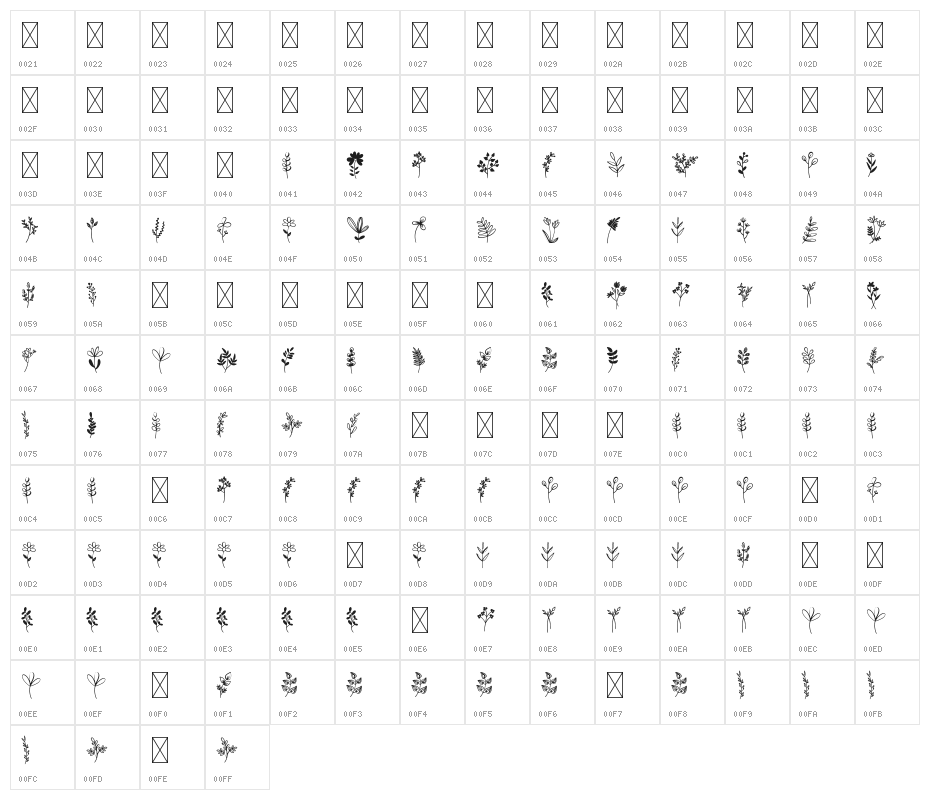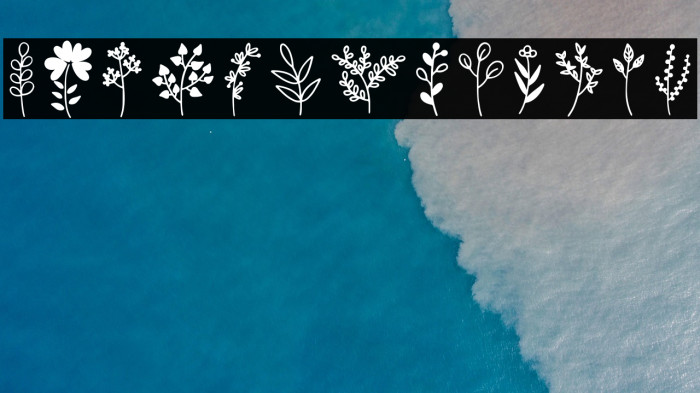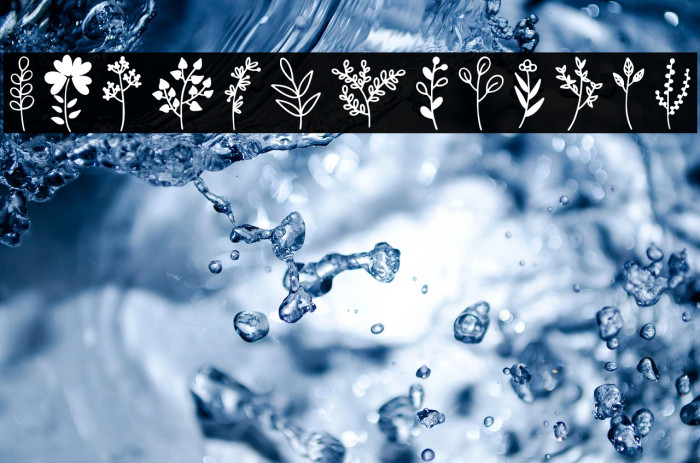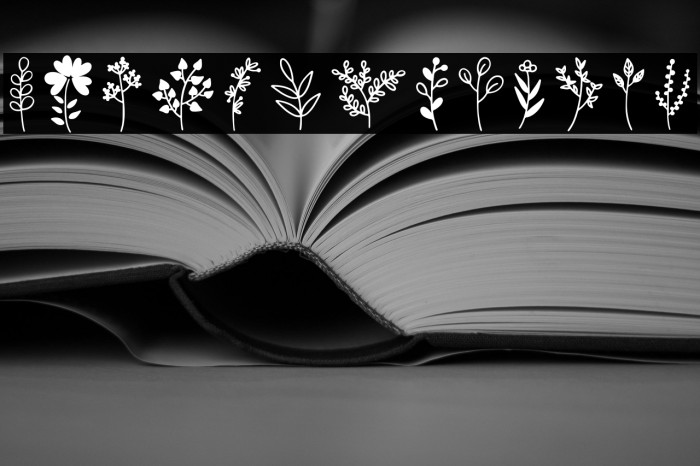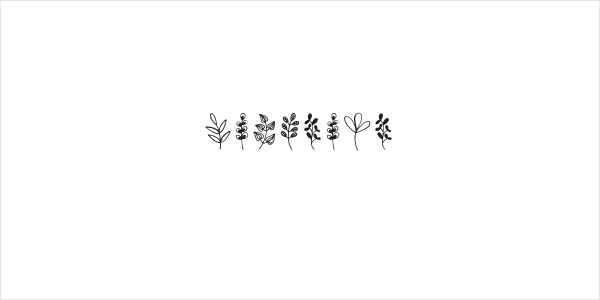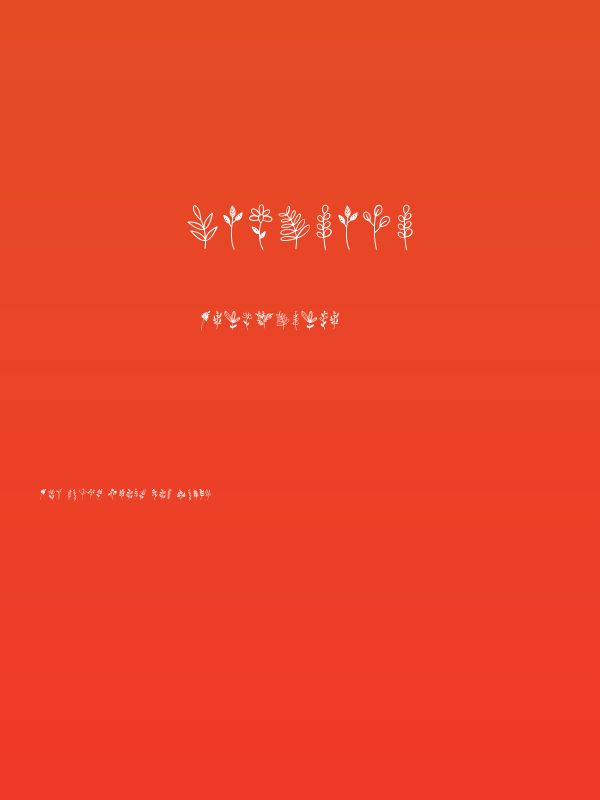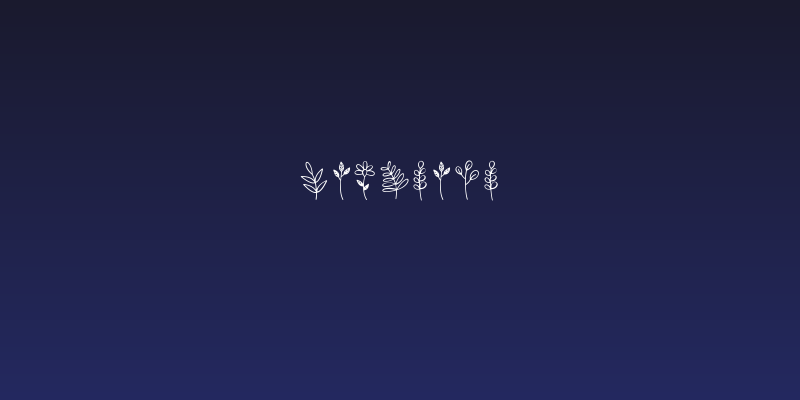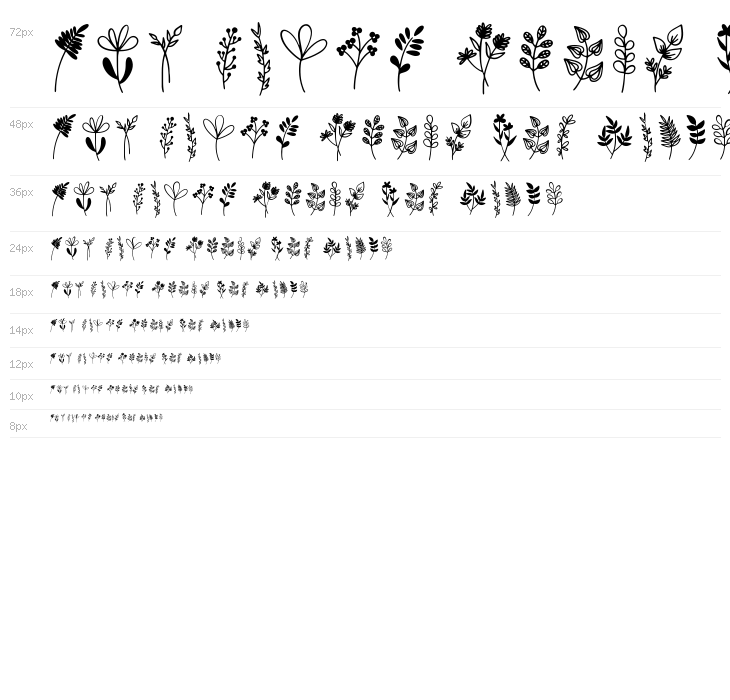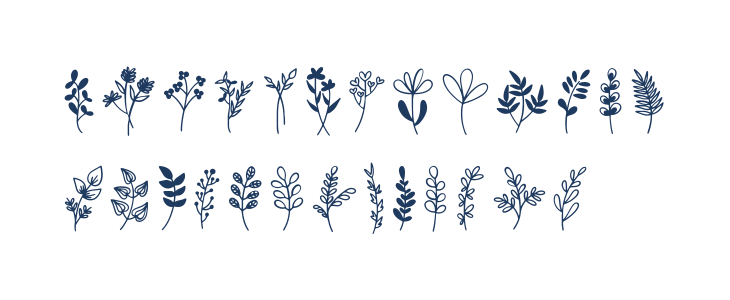
Floralia Font
Floralia Description
A decorative dingbat set featuring hand-drawn floral and botanical illustrations, with each glyph representing a unique flower or plant motif in a whimsical, sketch-like style. The designs are monochrome, with varying line thickness and playful, organic forms.
| Overall Style | Decorative, Hand-drawn, Whimsical |
| Use Case | Decorative elements, embellishments, icons |
| Proposed Projects | Invitations, greeting cards, scrapbooking, decorative borders, branding for florists, packaging, digital stickers. |